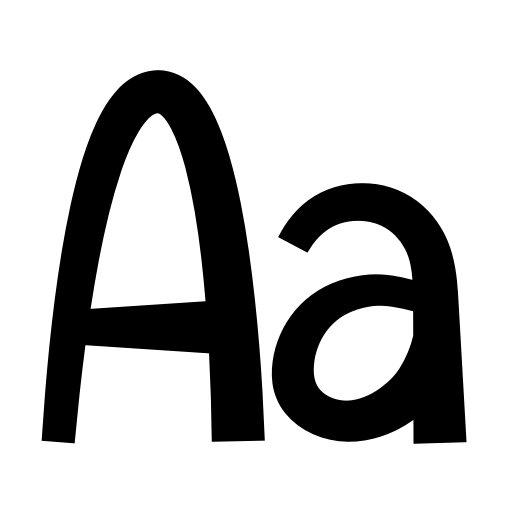
Boho Chubby is a playful and friendly sans serif font with a charming hand-drawn feel. Its rounded, slightly irregular letterforms and moderate stroke weight give it a casual, approachable personality, perfect for fun branding, children's materials, or informal headlines. This font works well where a lively and welcoming vibe is needed, adding warmth and personality to creative designs.
Boho Chubby Font